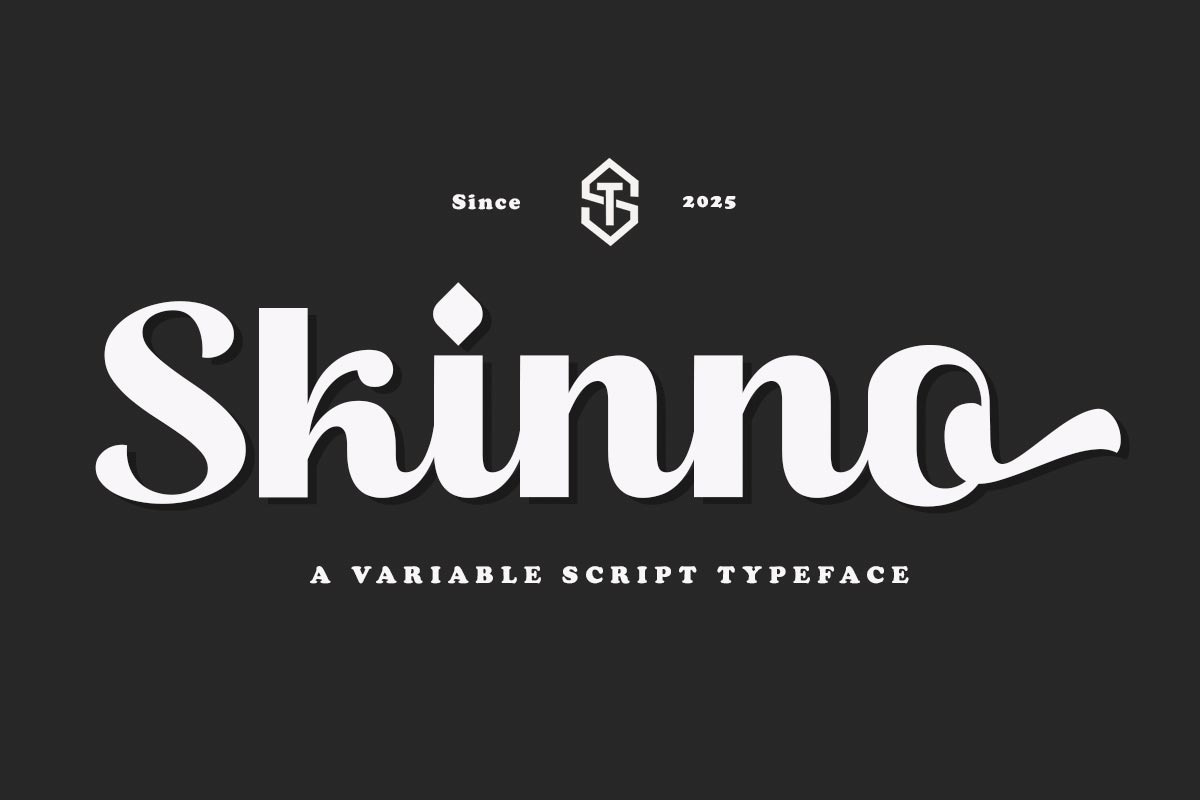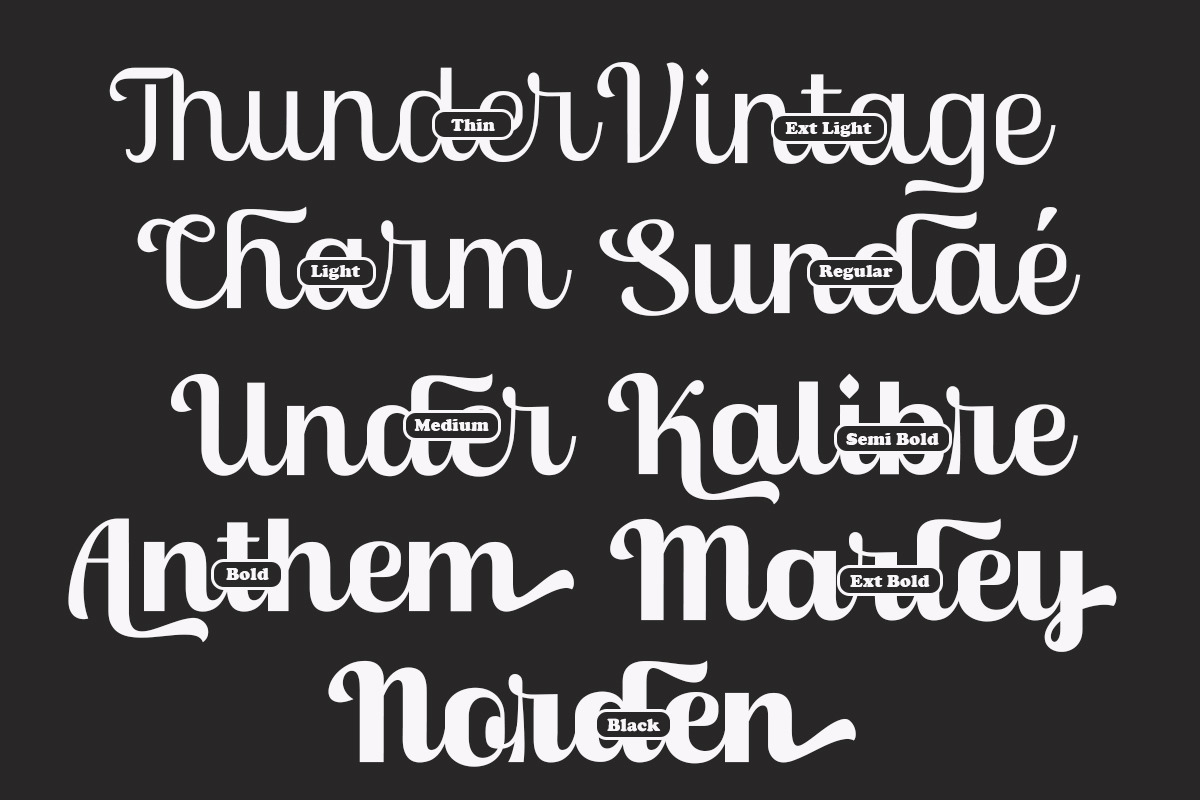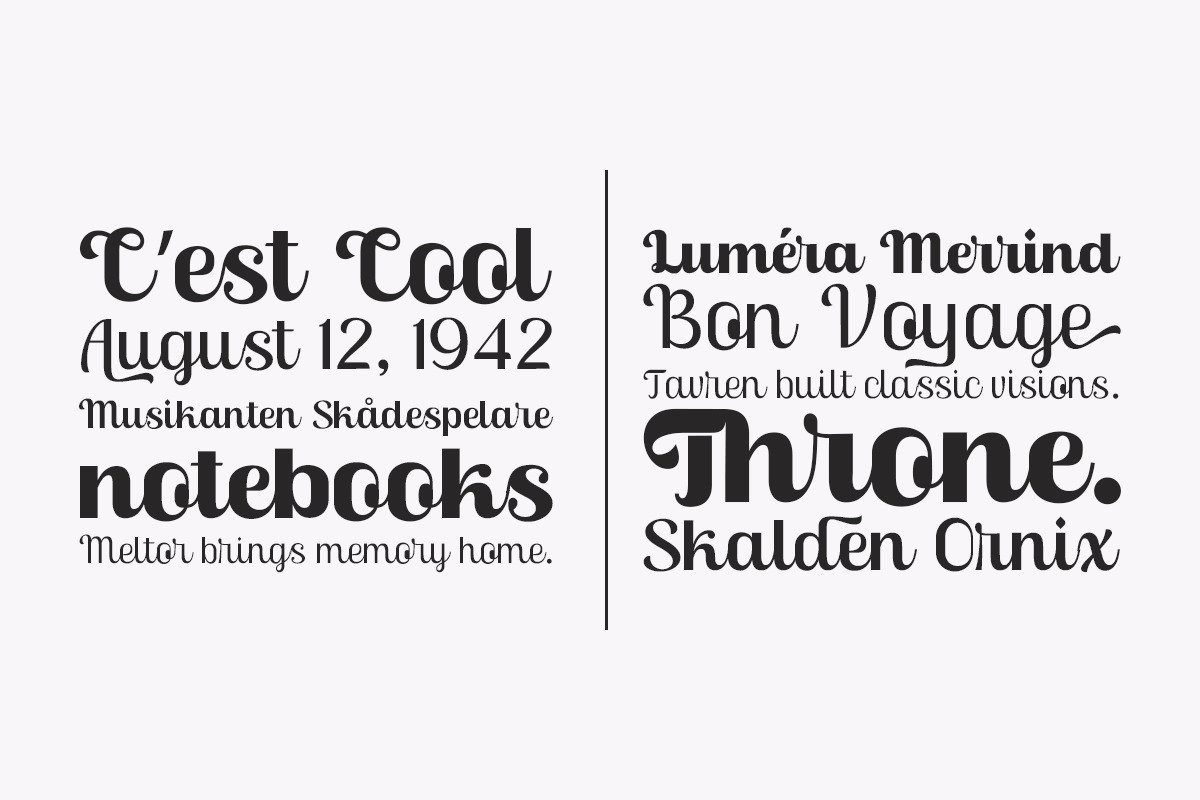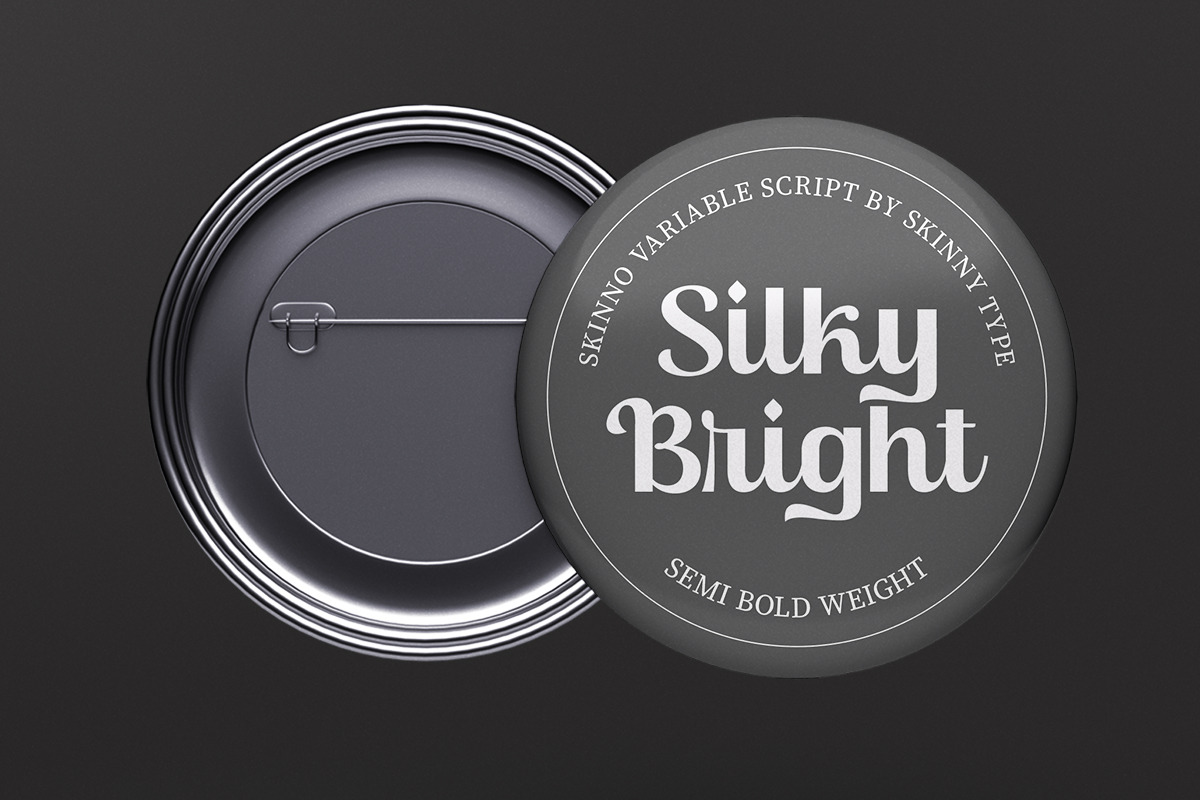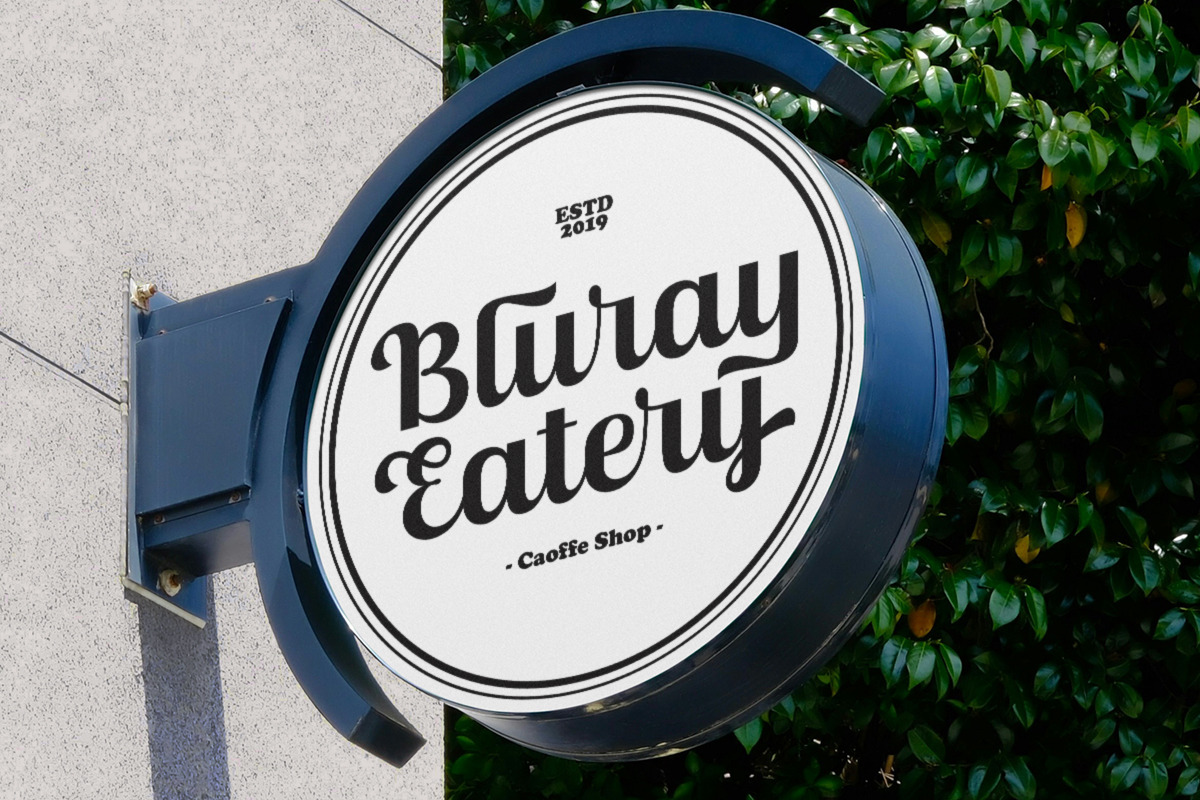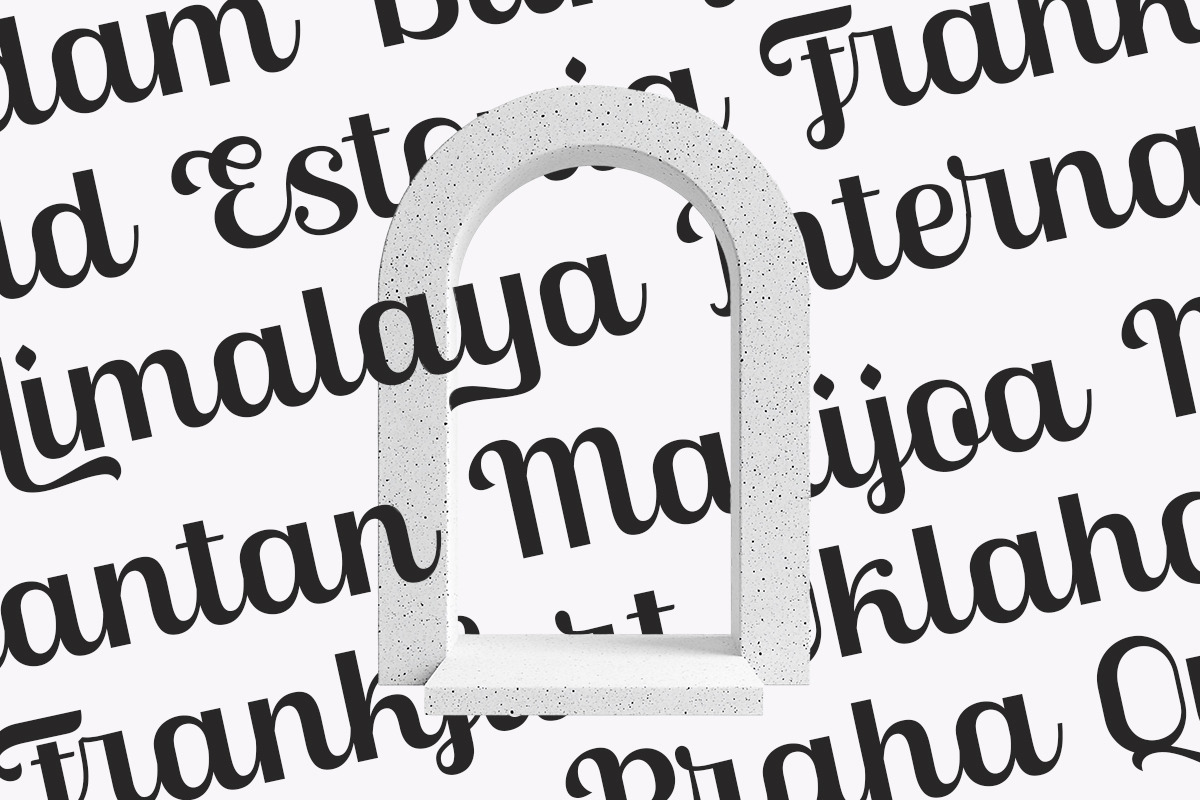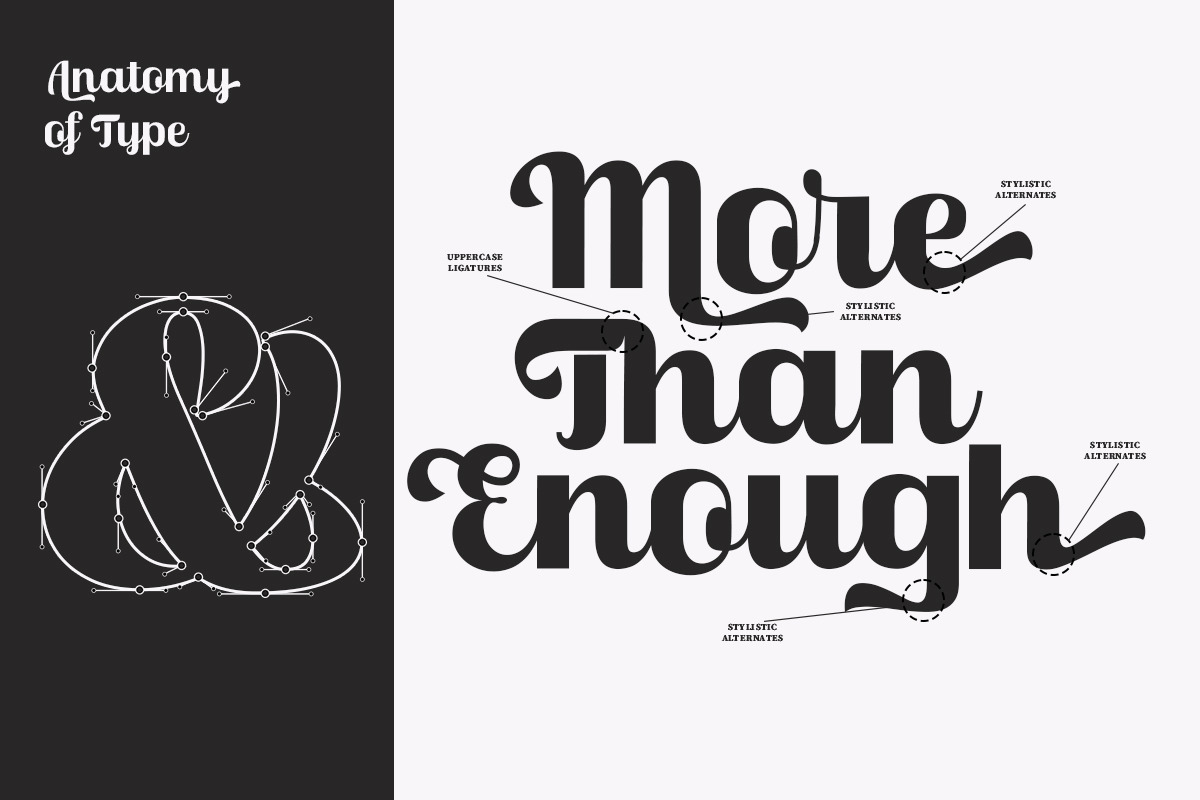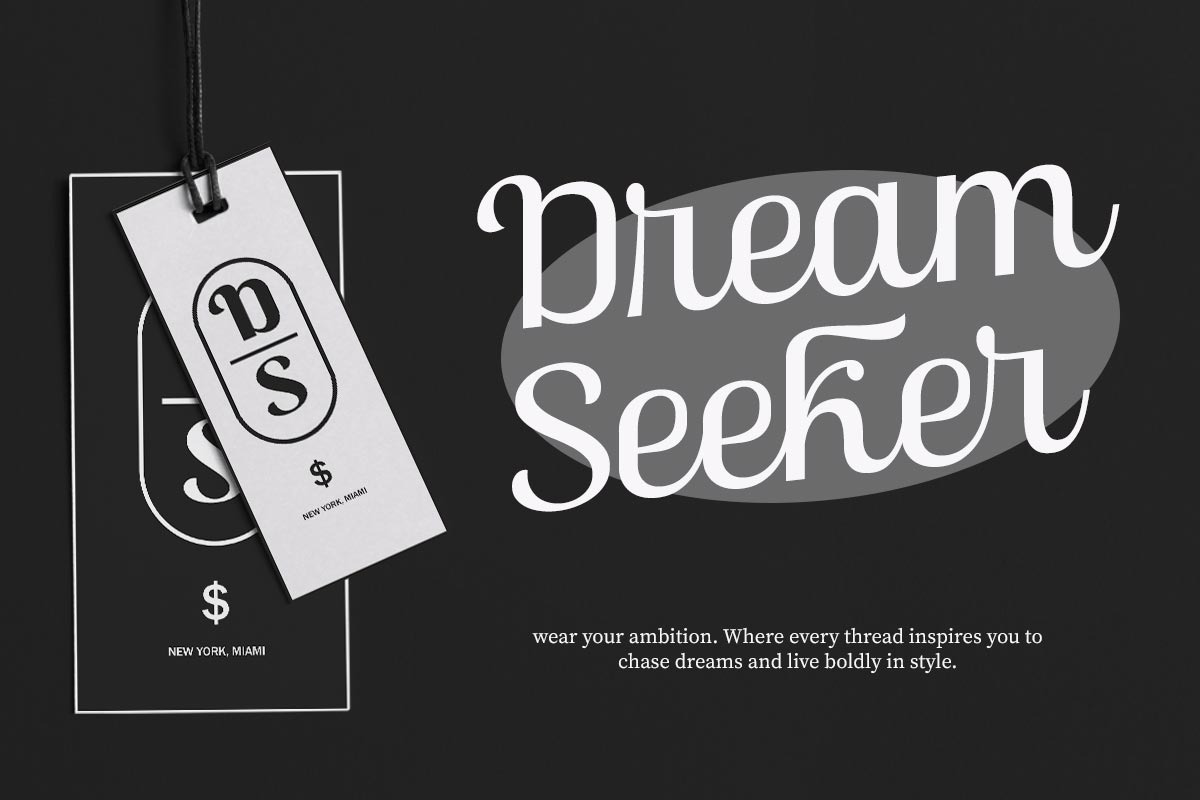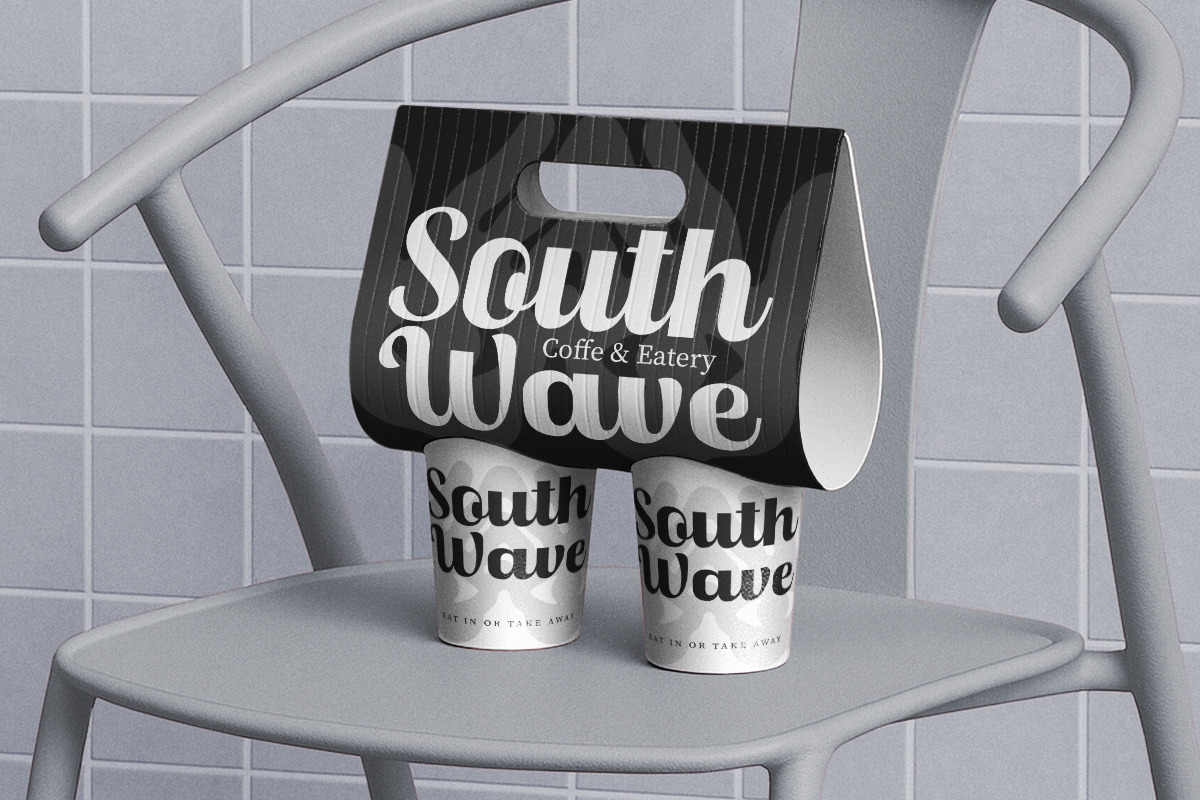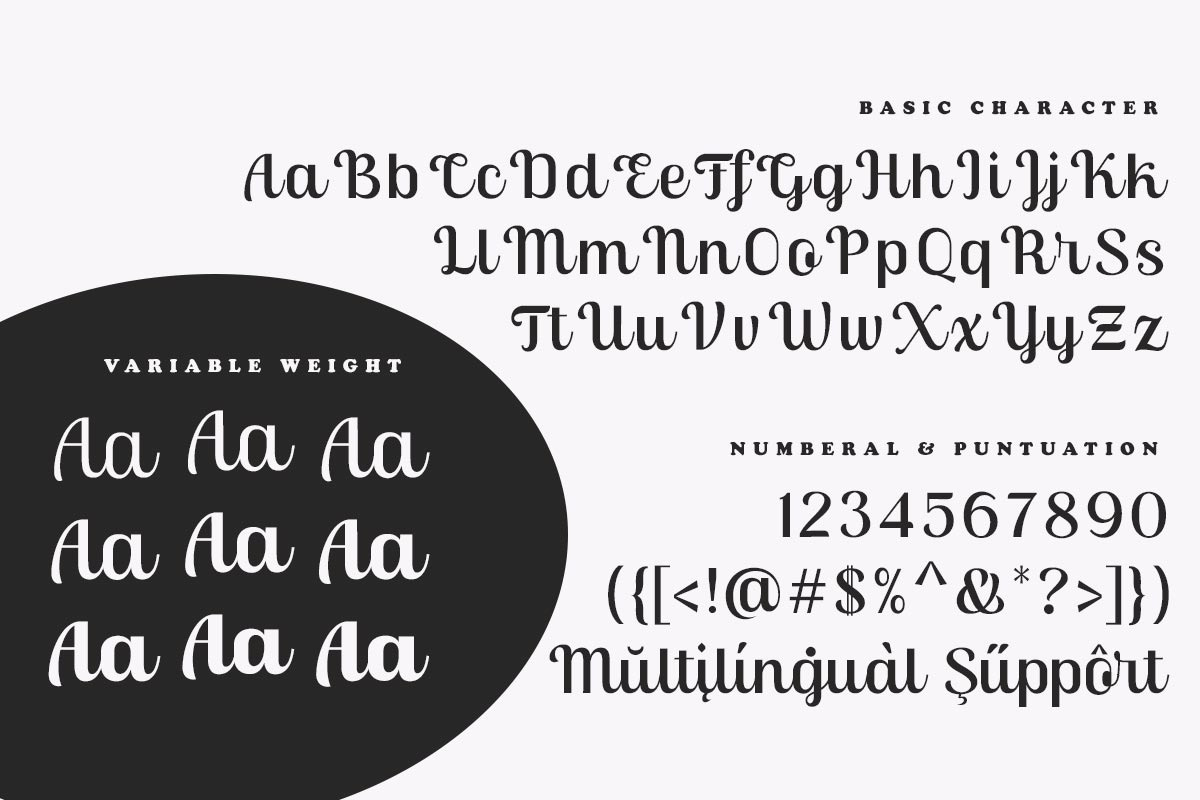
Skinno — A Variable Script Typeface
Skinno is a strong and expressive variable script typeface designed to merge modern versatility with a touch of crafted elegance. Its flowing curves and geometric structure create a confident, stylish rhythm across every character. From smooth light weights to commanding heavy styles, Skinno delivers impact and personality for every design context. Perfect for branding, packaging, editorial titles, signage, and creative displays, this typeface adapts seamlessly to your visual needs.
- 9 Weight Styles: Thin, Extra Light, Light, Regular, Medium, Semi Bold, Bold, Extra Bold, and Black
Variable Font Format: Smoothly adjustable weight axis for custom flexibility
Uppercase & Lowercase Letters
Multilingual Support (Latin Extended)
Alternates & Stylistic Swashes for expressive lettering
Ligatures for natural script flow
Optimized Kerning & Spacing